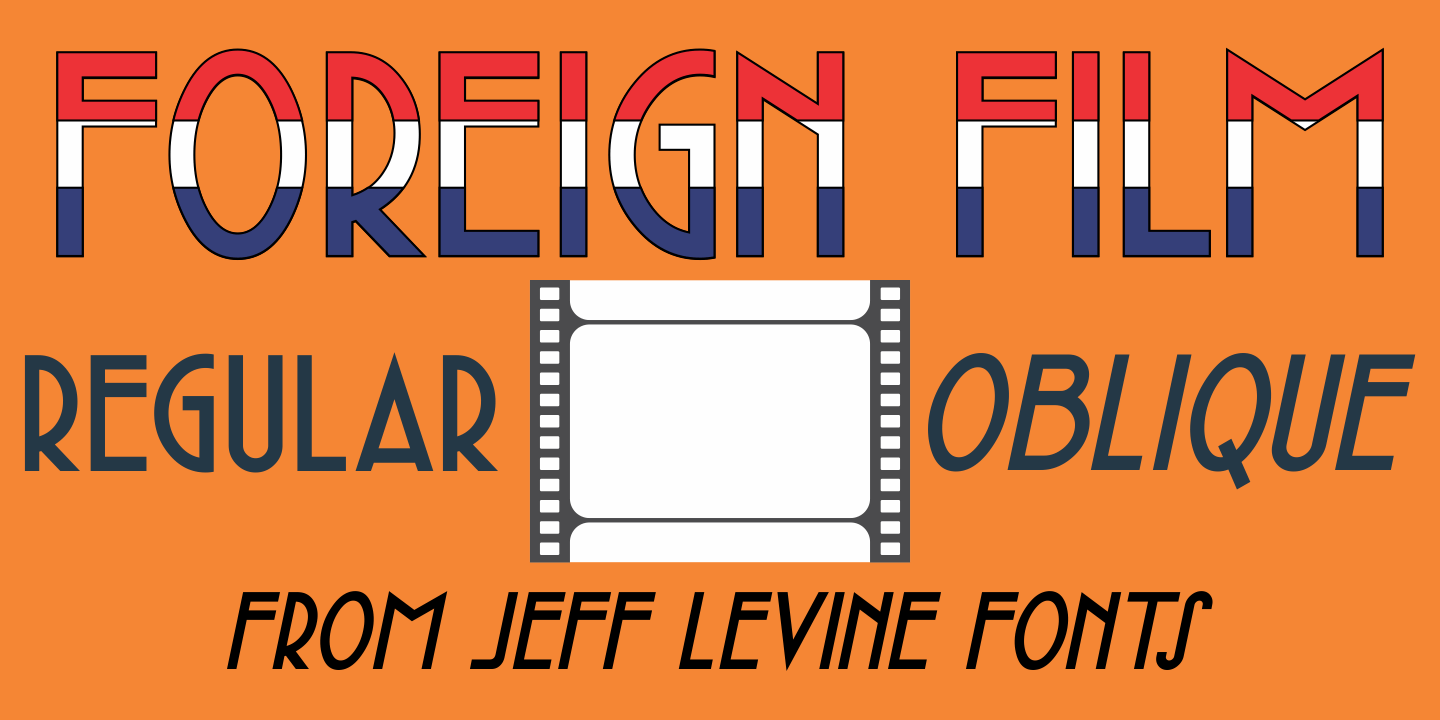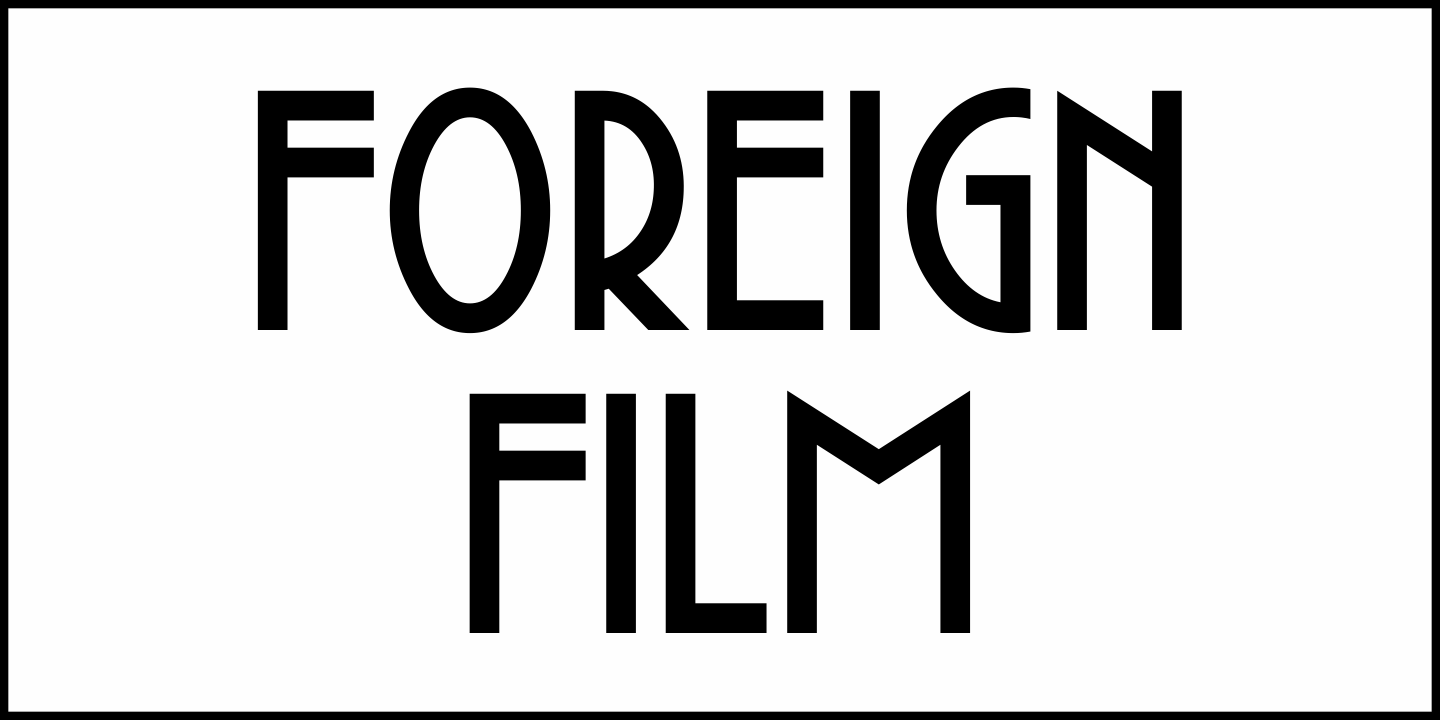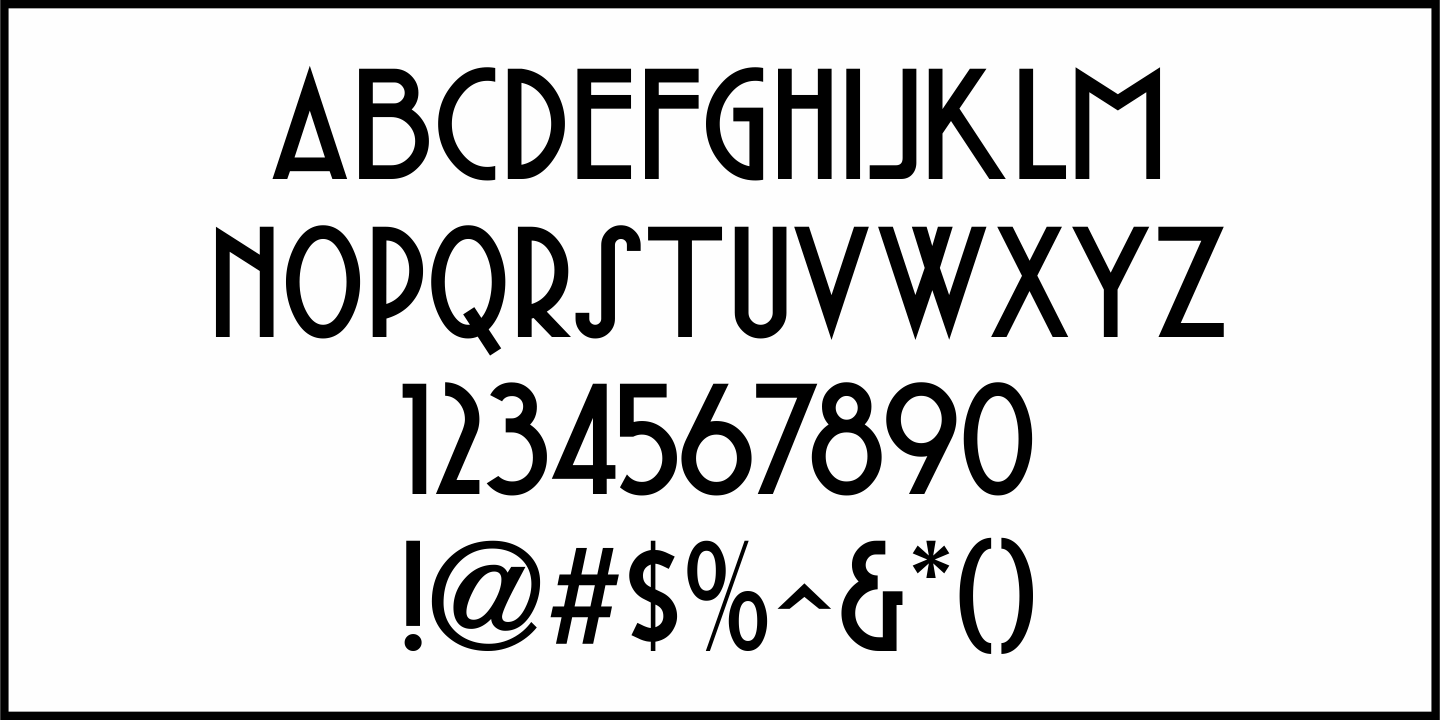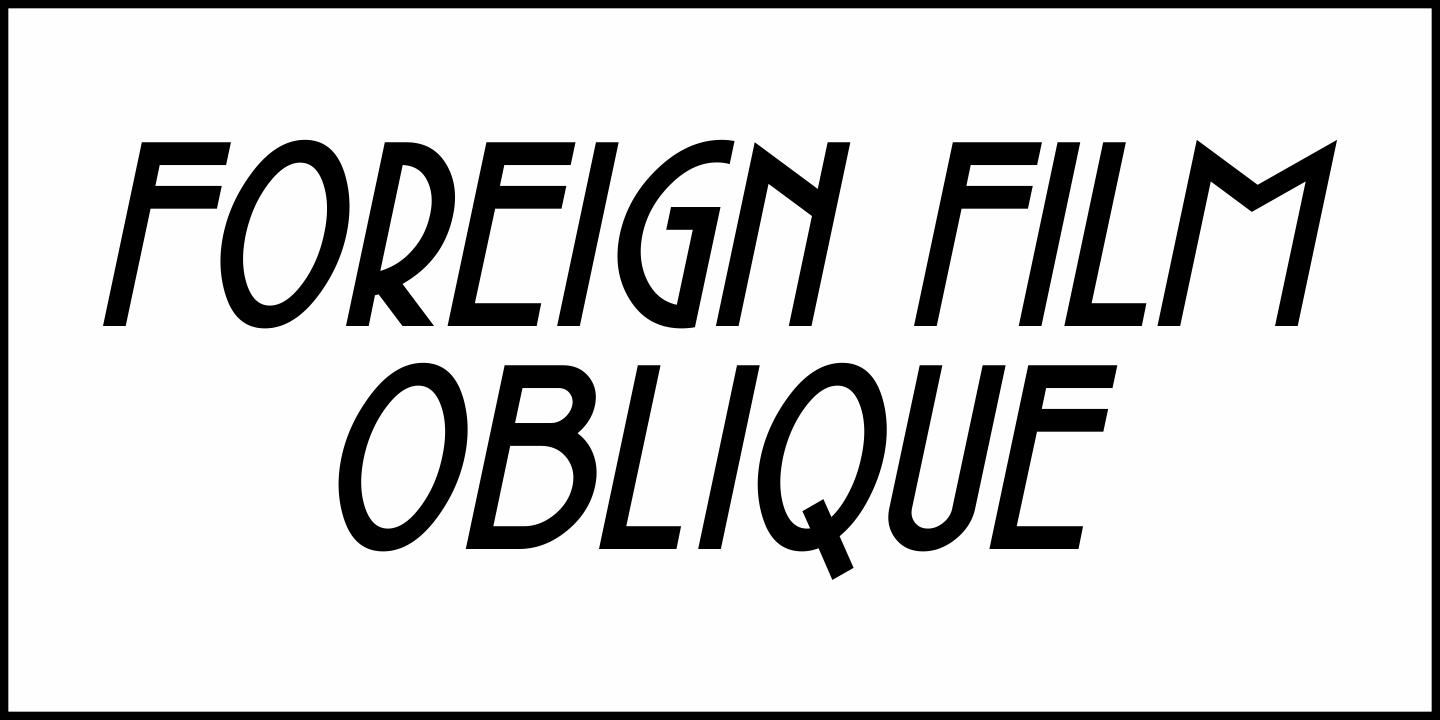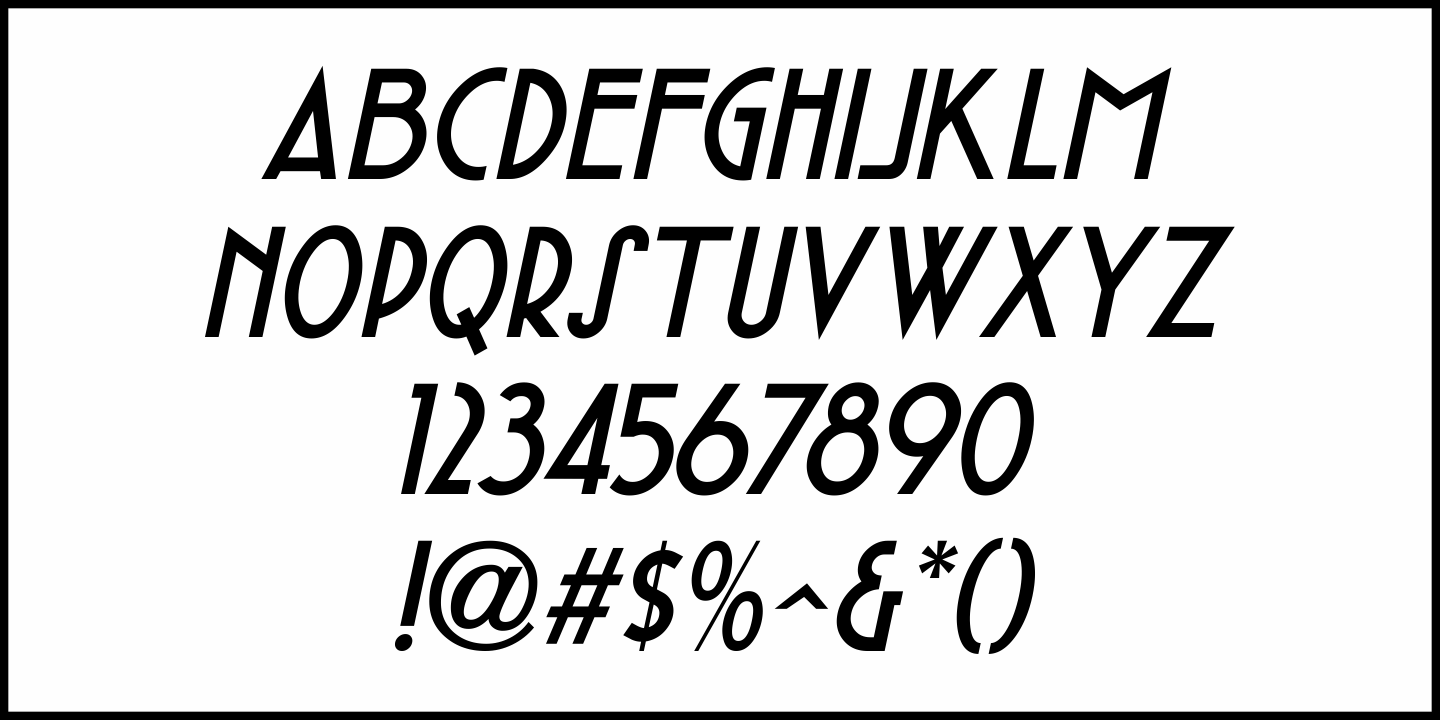
Foreign Film
Buy NowThe Art Deco hand lettered opening credits for the 1936 French drama “La Belle Équipe” [English title: “They Were Five”] provided the inspiration for Foreign Film JNL, which is available in both regular and oblique versions.
According to Wikipedia, the film “…tells the story of five unemployed workers who win the jackpot in the national lottery but their solidarity then proves fragile.”